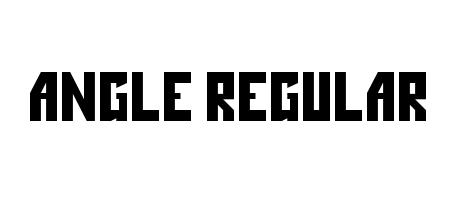
Angle
By Omegaville
Angle Regular is a bold, sans-serif typeface. Its chunky, geometric letters have sharp, slightly angled edges, giving a strong, almost brutalist feel. The uniformity of stroke weight creates a sense of solid, unwavering strength and confident simplicity. It's a font that commands attention without being overly ornate.